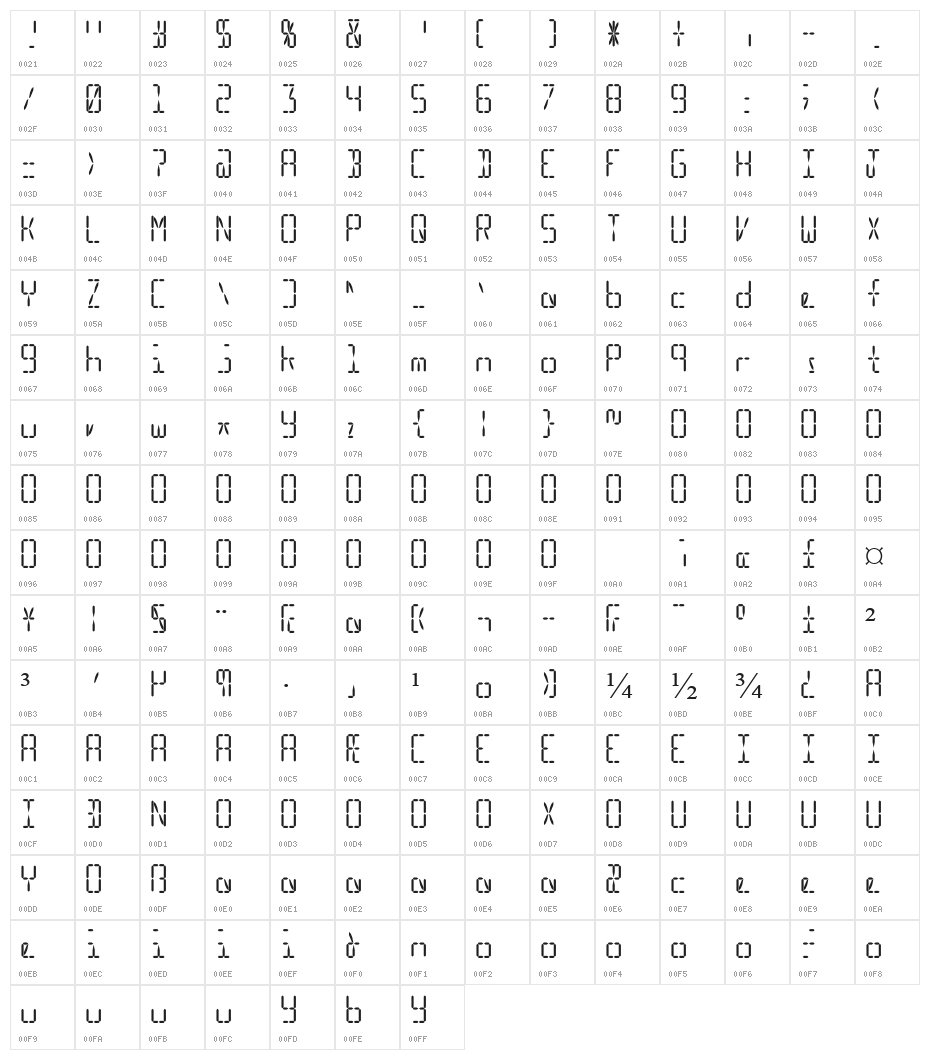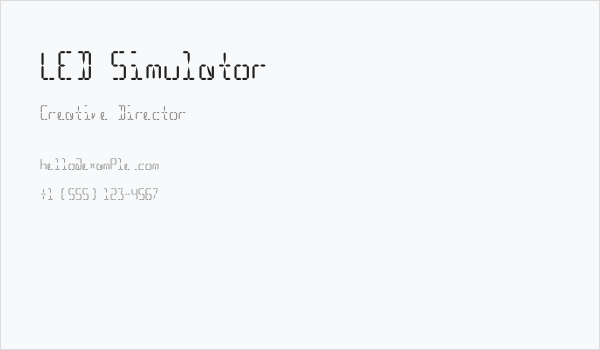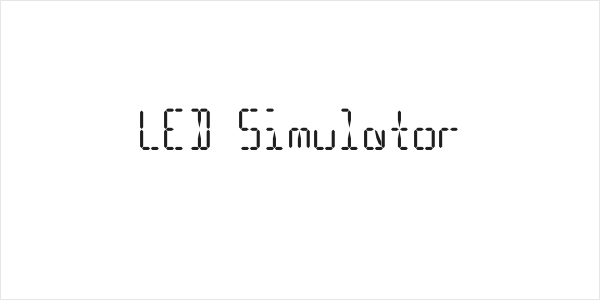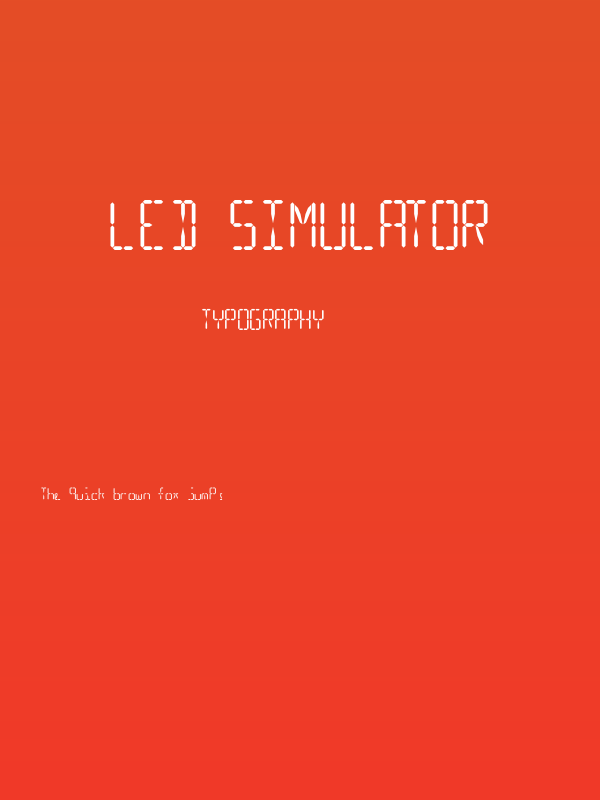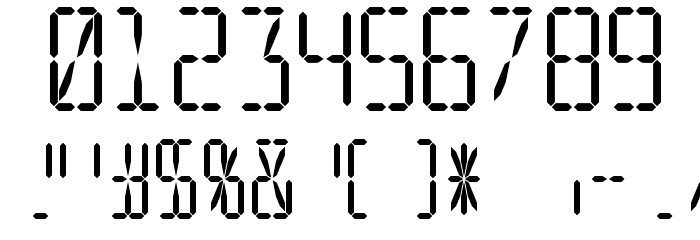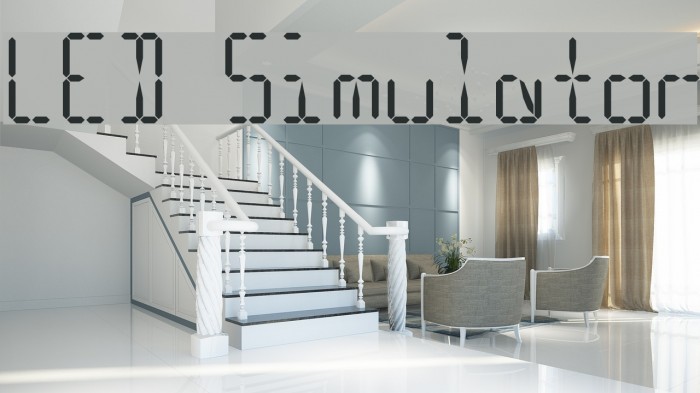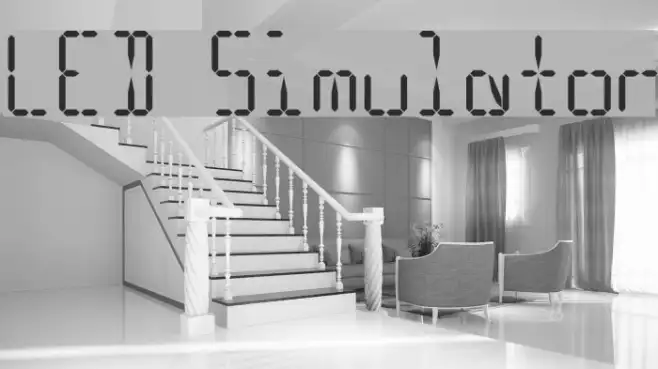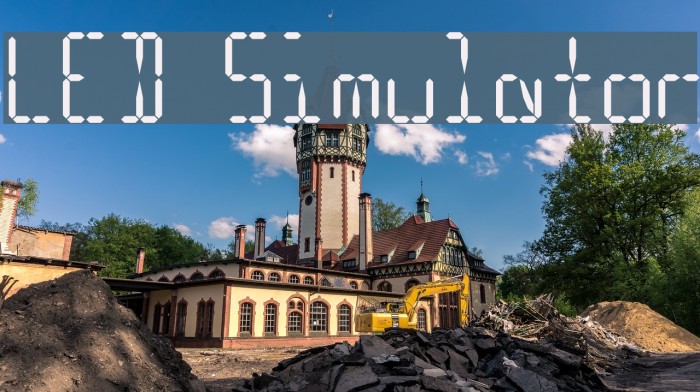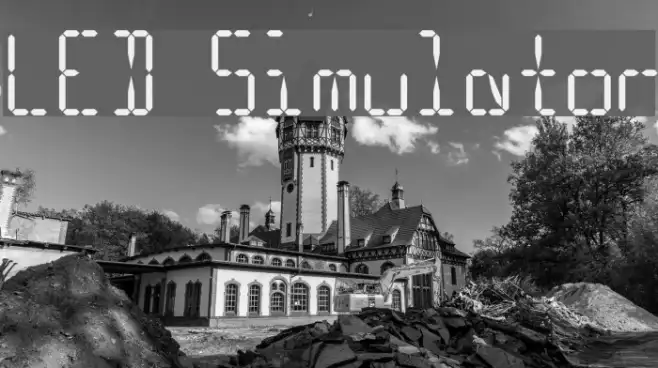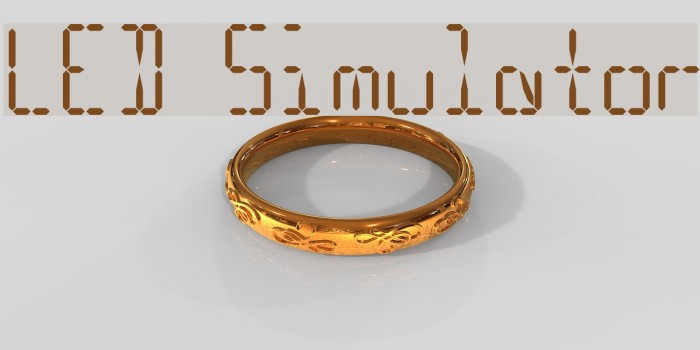
LED Simulator Font
LED Simulator Description
This font mimics the appearance of LED displays, characterized by its segmented, geometric style. Each character is constructed from a series of straight lines and angles, resembling the digital readouts found on electronic devices. The uppercase and lowercase letters, as well as numbers, maintain a consistent segmented design, enhancing the digital aesthetic. The font's unique structure makes it highly recognizable and ideal for conveying a modern, technological feel. Its uniformity and precision are reminiscent of classic digital clocks and calculators, providing a nostalgic yet futuristic look.
| Proposed Projects | Ideal for digital-themed projects, tech branding, electronic device interfaces, and retro-futuristic designs. |